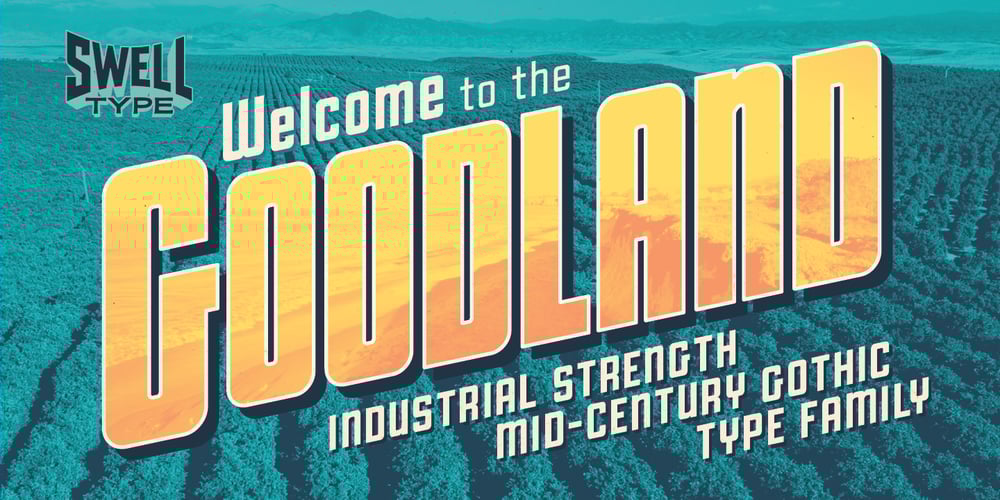
Goodland
Goodland font
Goodland Font Family was designed by John Roshell and published by Swell Type. Goodland contains 48 styles and family package options. Built tall and strong, the Goodland font family is ready to do the heavy lifting in your next design project! Inspired by painted signs on industrial buildings in the town of Goleta, California, Goodland combines a mid-20th century aesthetic with modern features. Three widths: Normal, Condensed and Compressed Eight weights from ExtraLight to UltraBold Matching italics for all 584 glyphs support 223 languages, including Vietnamese & Cyrillics Two sets of Stylistic Alternates Variable font to select any amount of width, weight or slant The Goodland font family is a versatile branding solution. Extreme Light and Bold weights stand out in headlines and display type, while the mid-range Regular and Medium make for easily readable body text on light or dark backgrounds. Dial in the exact look you need with Stylistic Alternates and Variable Font features.Explore the many features of the Goodland font with wonderful things that have come out of the Goodland!